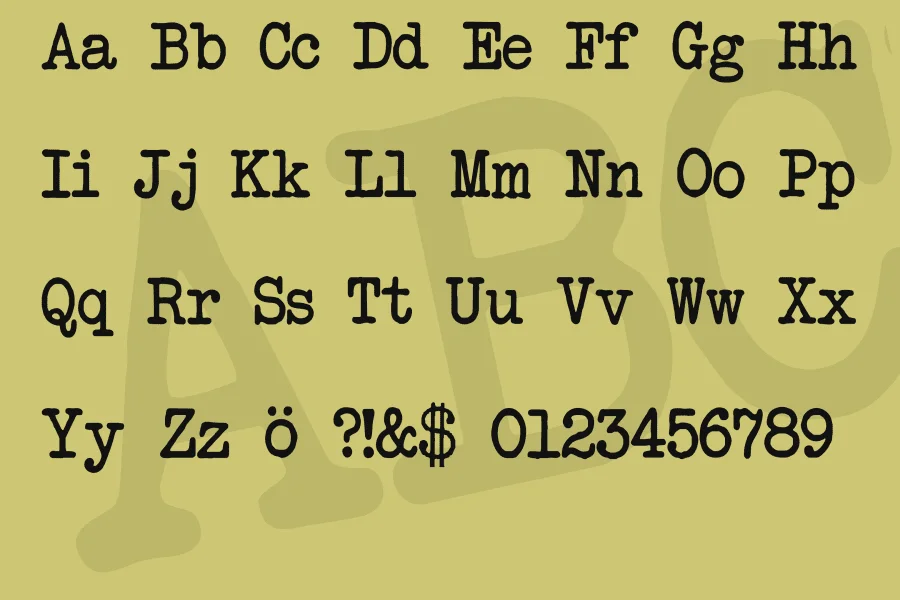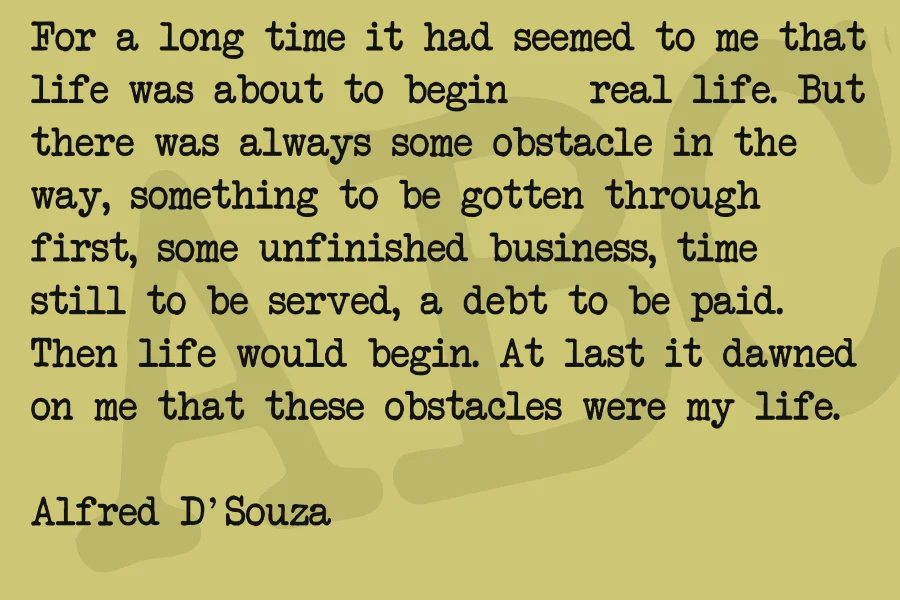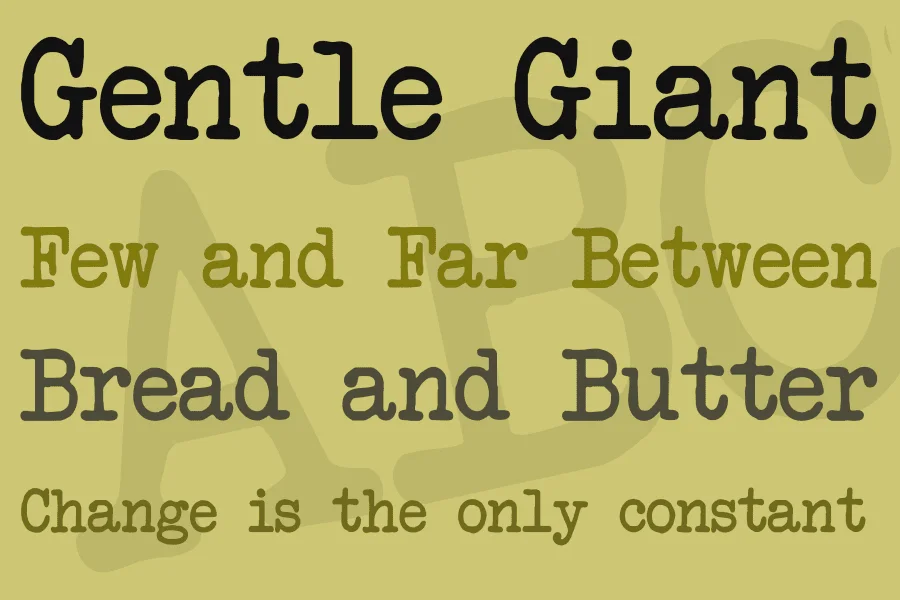
Another Typewriter is a typewriter‑style, vintage slab‑serif typeface with an authentic old‑mechanical charm, like text struck on a retro typewriter. Its characters feature slightly irregular edges and subtle imperfections, which gives the impression of ink on paper from a well‑used machine.
The uppercase letters are bold and prominent, while lowercase letters stay consistent and balanced, and numbers and punctuation follow the same slightly rough, uneven‑but‑mechanical look. That makes the font feel nostalgic and tactile, perfect for evoking a mid‑20th‑century analog atmosphere.
Because of its distinct character and retro‑typewriter vibe, Another Typewriter shines as a display or headline font. It works especially well for projects that benefit from a vintage, analog, or “document from the past” aesthetic. Think posters, logos, book covers, zines, letter‑style designs, or anything where you want to evoke a sense of history or authenticity.